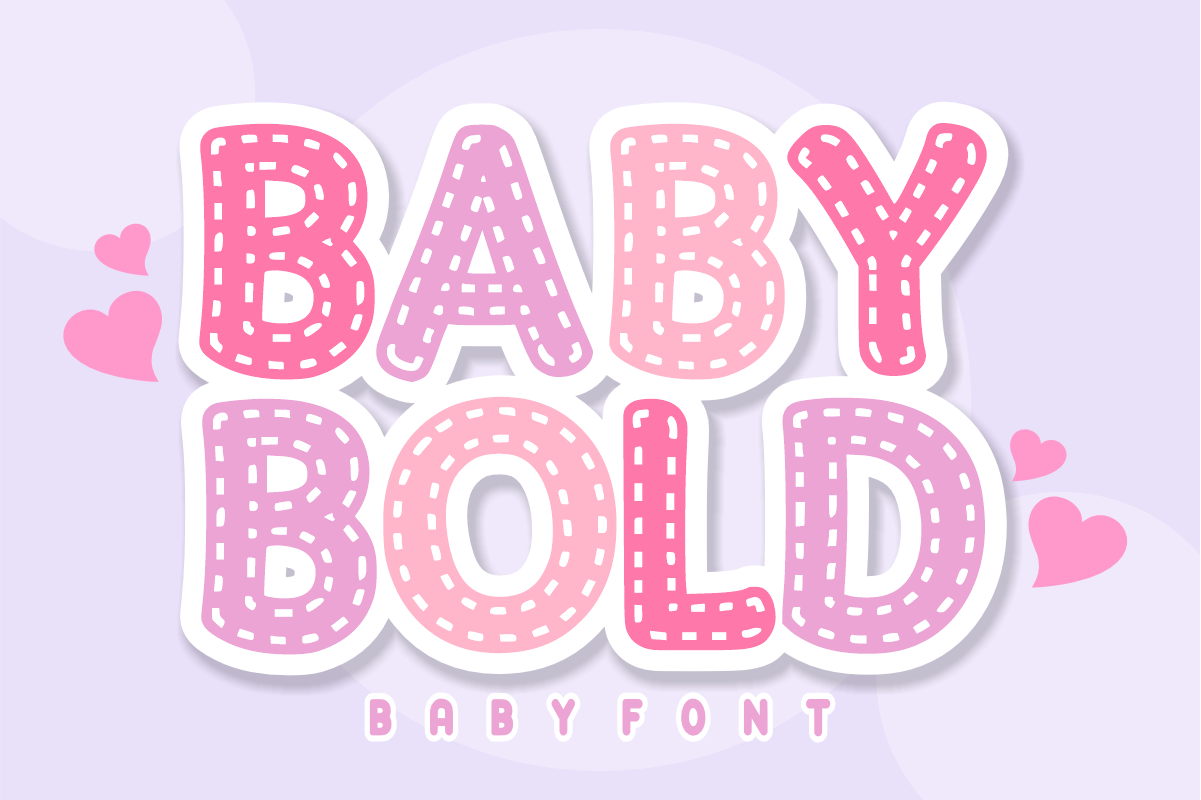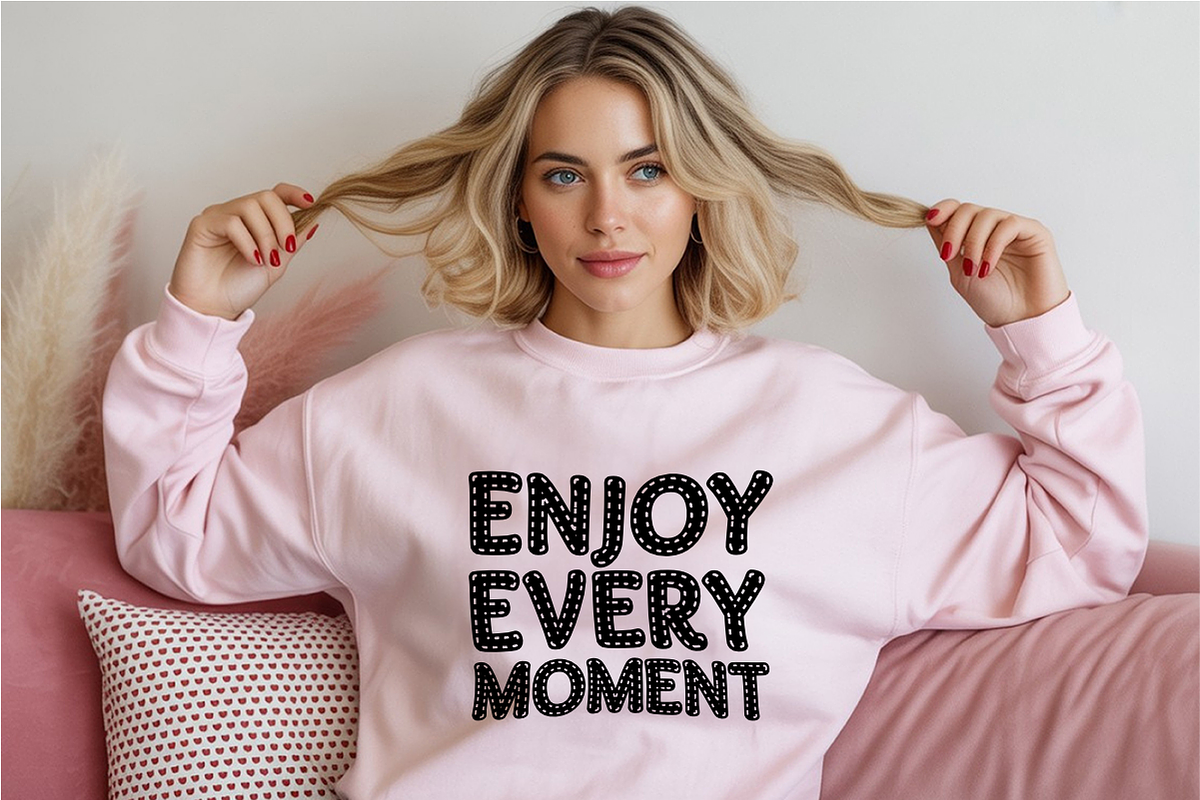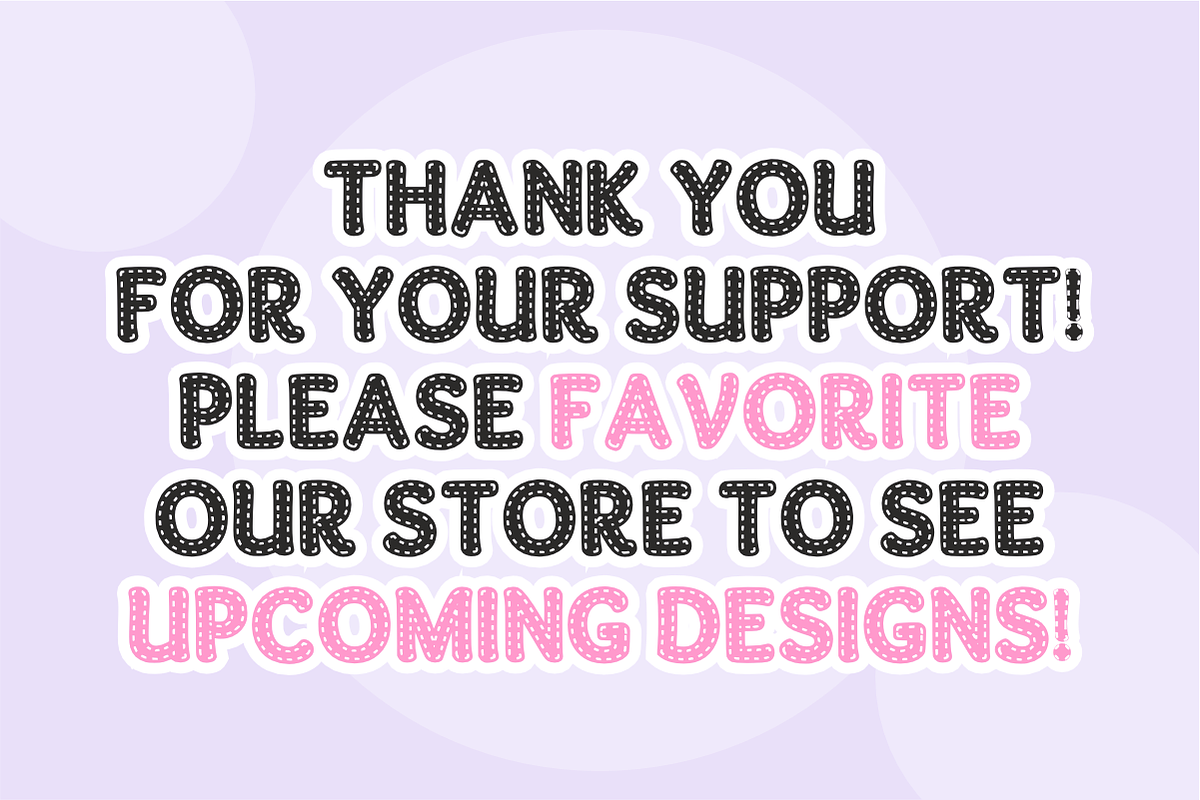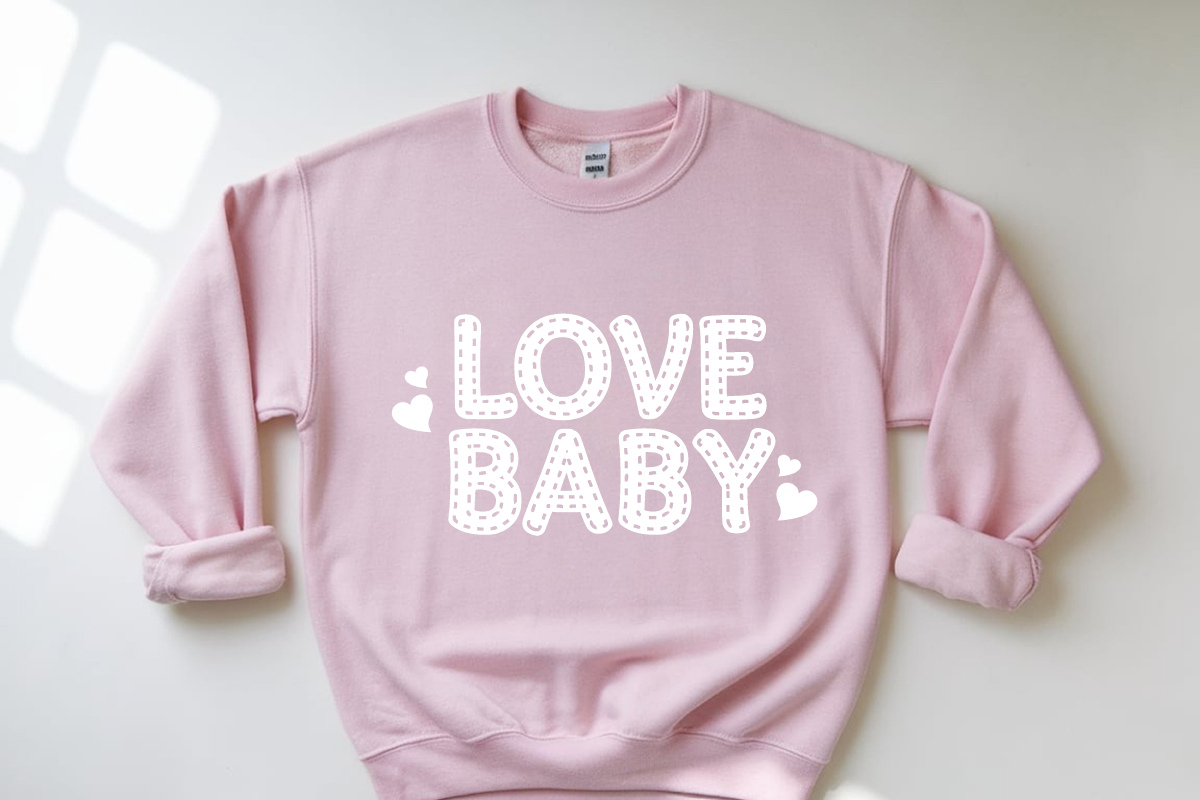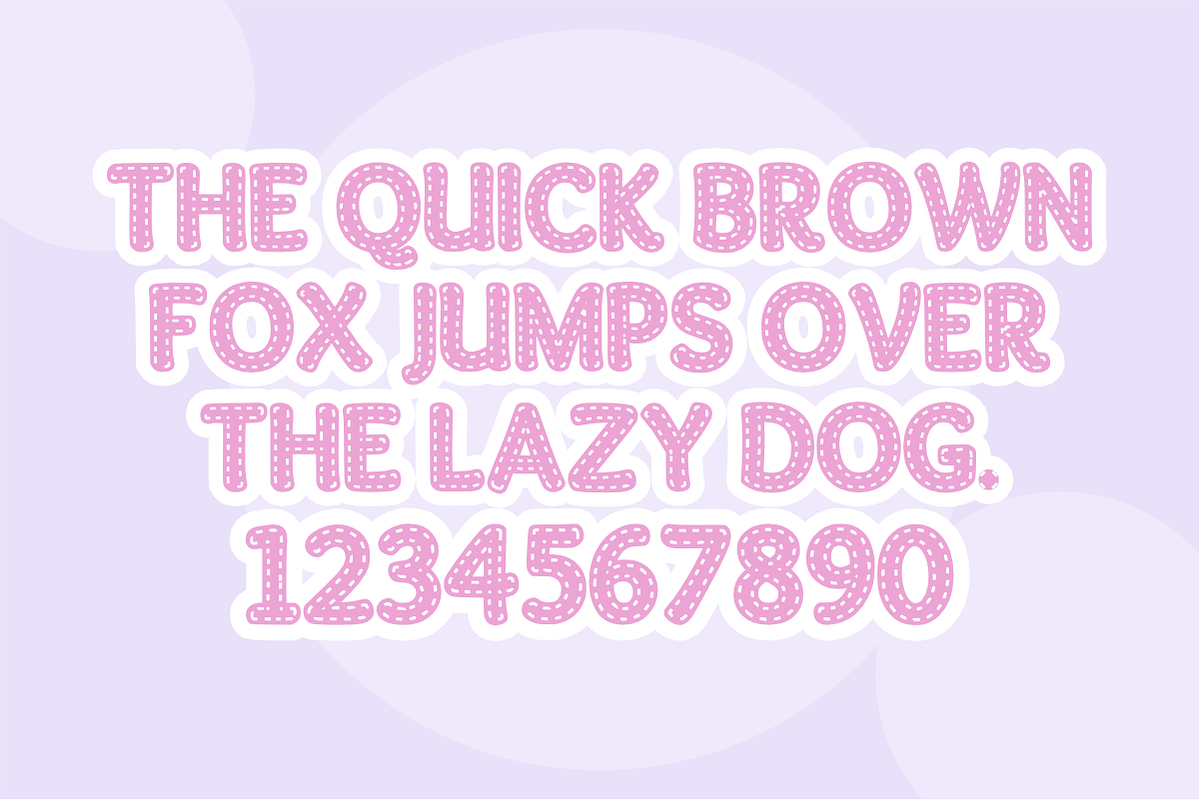
Baby Bold - Cute Stitched Baby Font
Baby Bold is an adorable, chunky display font featuring soft, rounded letterforms filled with detailed stitched dash lines. Combining sweet embroidery texture with bold nursery warmth, this cute font adds a charming handmade touch to baby shower invites, nursery decor, plush toy branding, and DIY craft projects. Every character is cleanly vectorized to guarantee high-resolution prints and smooth, effortless cutting on Cricut and Silhouette machines.